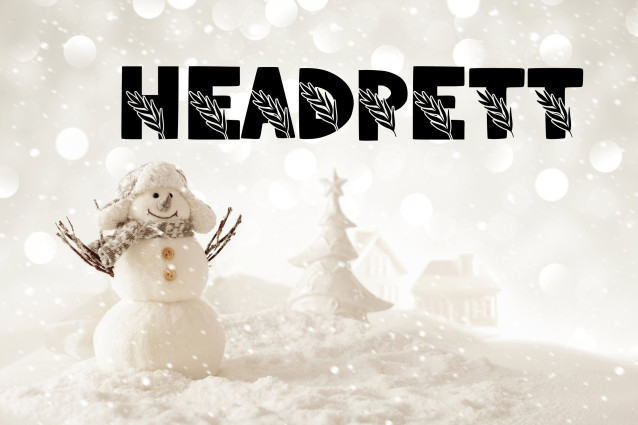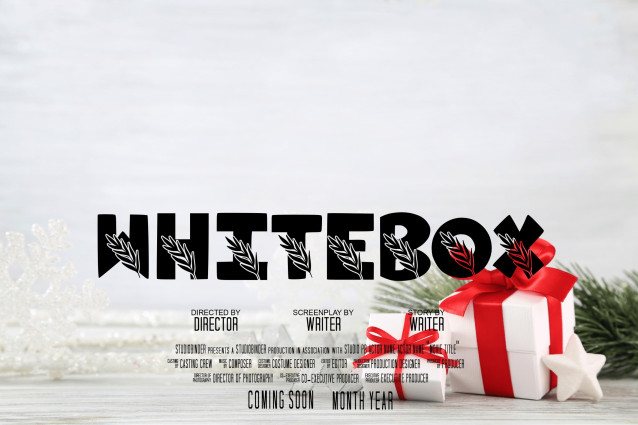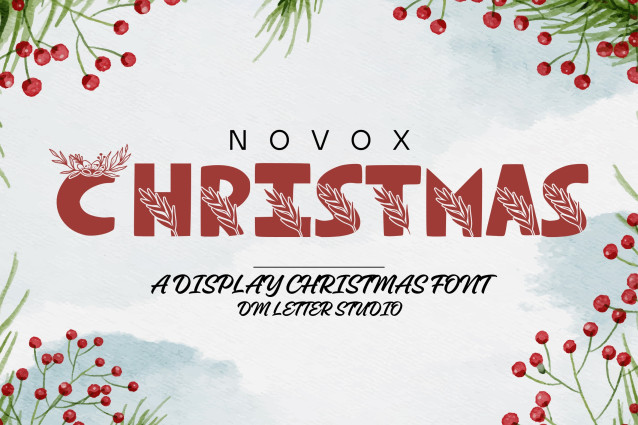
Novox Christmas Font
Novox Christmas Font is a bold, cheerful display font infused with holiday spirit. Designed to evoke warmth and celebration, this font features sturdy letterforms with subtle festive flair—perfect for holiday cards, Christmas merchandise, seasonal banners, DIY crafts, and joyful branding. Its bold structure pairs beautifully with sparkling graphics and cozy winter designs.